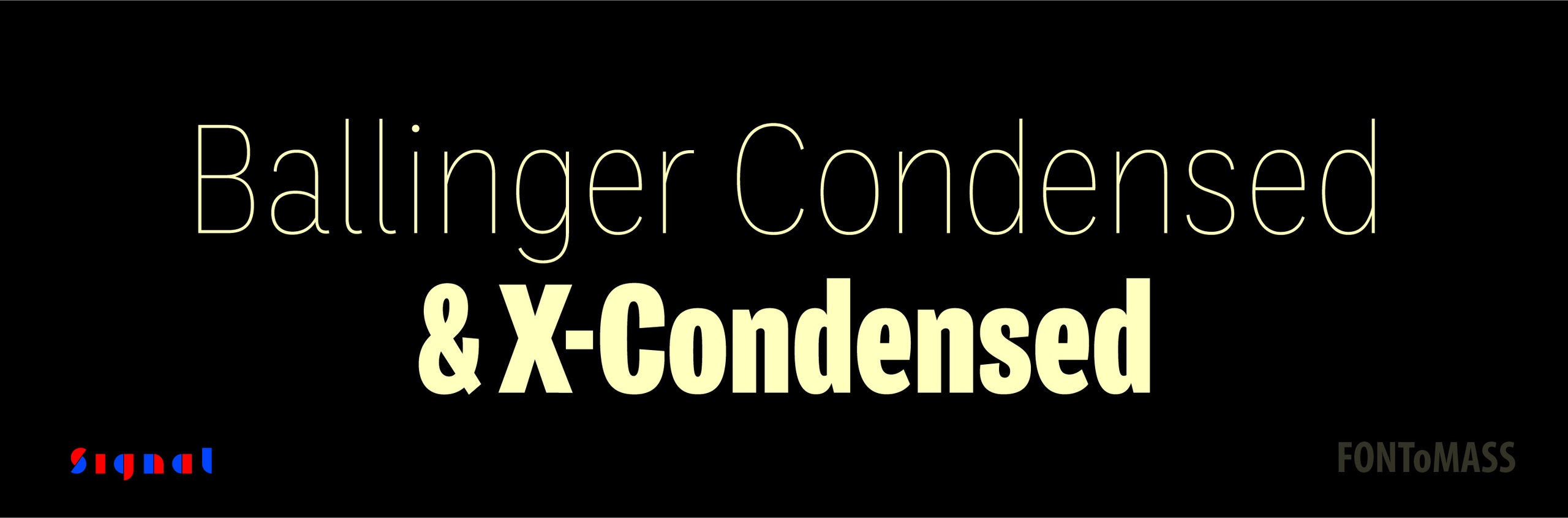
Ballinger Condensed Series Font
Ballinger Condensed Series Font is perfect for space-efficient headlines, narrow column layouts, vertical signage, compact advertising, magazine mastheads, poster titles, architectural labels, urban wayfinding systems, display advertising, and contemporary editorial designs.
What makes Ballinger Condensed Series Font exciting is its spatial efficiency that maximizes typographic impact while conserving valuable design space through intelligently crafted letterforms. This versatile typeface series combines condensed functionality with contemporary sophistication, creating a personality that communicates precision, modernity, and strategic design thinking. The font's condensed character and systematic appeal make it perfect for designers and brands working with space constraints while maintaining strong visual presence and professional readability.
The Ballinger Condensed Series Font family includes Ultra Condensed, Extra Condensed, Semi-Condensed, Regular, Bold, Light, and Display variants. Each weight maintains the font's efficient character while providing comprehensive typographic flexibility for space-conscious brand identity systems and compact design applications across diverse media platforms.
Maximize your design impact with this exceptional condensed typeface series that defines spatial efficiency through intelligently crafted letterforms. Ballinger Condensed Series Font Free Download provides designers with access to premium condensed typography that communicates precision, modernity, and space-efficient sophistication across all compact projects and editorial communications.
Whether you're developing headline systems, creating magazine layouts, designing vertical signage, or building space-efficient advertising campaigns, Ballinger Condensed Series Font delivers unmatched condensed appeal and contemporary sophistication. Its efficient presence makes it perfect for publishers, urban planners, architectural firms, and design agencies seeking authentic space-conscious representation.
The font series' optimized proportions and condensed details ensure maximum readability within minimal space requirements while maintaining distinctive character and professional appeal. Each letterform has been carefully engineered to preserve legibility under extreme condensation, making it ideal for challenging layout environments and space-restricted applications.
This versatile typeface series excels in compact environments, offering designers the efficiency needed for comprehensive space-conscious brand communication strategies. The extensive character set includes condensed alternates, efficient ligatures, and space-saving symbols for editorial market positioning and compact brand storytelling.
Optimize your space-conscious projects with Ballinger Condensed Series Font Free Download and experience how condensed typography can enhance design efficiency and contemporary appeal. This remarkable typeface series captures the essence of spatial intelligence while providing the versatility required for modern space-efficient brand communication.
Embrace the power of efficient design that maximizes impact while celebrating intelligent space utilization and contemporary typographic innovation.